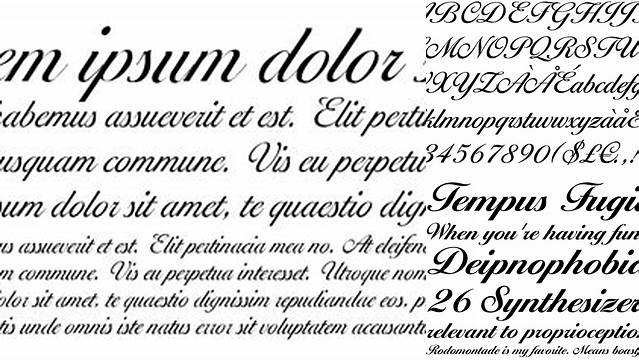
Guys, if you're on the hunt for a typeface that oozes elegance and sophistication, look no further! The Ballantines Script EF Light font is a fantastic choice for a wide range of design projects. This font, with its delicate strokes and flowing curves, can add a touch of class to anything from wedding invitations and greeting cards to logos and branding materials. It's seriously versatile, and once you get your hands on it, you'll find yourself using it all the time. But, finding a reliable and safe download source can be tricky, so let's dive into everything you need to know about this beautiful font and how to snag it for your projects.
The Ballantines Script EF Light font is a typeface known for its graceful and refined appearance. It belongs to the script font family, characterized by its cursive and handwritten style. The “EF” in its name refers to Elsner+Flake, a well-known German font foundry that originally developed the font. This particular version, the “Light” variant, is thinner and more delicate compared to the regular or bold versions, making it perfect for designs where a subtle touch of elegance is desired. The font’s design draws inspiration from traditional calligraphy, with its flowing letterforms and elegant swashes, creating a sense of timeless beauty. Its readability remains excellent even in smaller sizes, which is a crucial factor for various design applications. Whether you're designing a logo, crafting an invitation, or working on a branding project, the Ballantines Script EF Light font brings a certain sophistication that few other fonts can match. It’s a true gem in the world of typography, and understanding its nuances can significantly elevate your design work.
So, why should you even bother with this font? Let's break it down. First off, its aesthetic appeal is undeniable. The light, airy feel of the font adds a touch of sophistication to any project. It's not just a font; it's a statement. Imagine using it for wedding invitations – the elegant curves and delicate strokes will immediately set the tone for a classy affair. Or, picture your brand logo crafted in this font, exuding a sense of luxury and refinement. The possibilities are endless!
But it's not just about looks. The versatility of Ballantines Script EF Light is another major plus. You can use it for a wide array of projects, from print materials like brochures and business cards to digital designs for websites and social media. Its readability is surprisingly good, even in smaller sizes, which means you can confidently use it for body text as well as headlines. This adaptability makes it a valuable asset in any designer's toolkit. Whether you're working on a formal project or something more casual, this font can seamlessly fit into your vision. It's like that perfect little black dress – always appropriate, always stylish. Think about using it for personalized stationery, adding a touch of elegance to your correspondence, or even for creating stunning social media graphics that stand out from the crowd.
And let's not forget the emotional impact this font can have. The flowing, handwritten style evokes feelings of warmth, nostalgia, and personal connection. It's a font that speaks to the heart, making it ideal for projects that aim to create an emotional response. Think about the difference between a generic, sans-serif font and Ballantines Script EF Light when used in a heartfelt thank-you note. The latter adds a personal touch that makes the message feel more genuine and sincere. This emotional connection is what sets this font apart and makes it a powerful tool for designers looking to create impactful and meaningful designs.